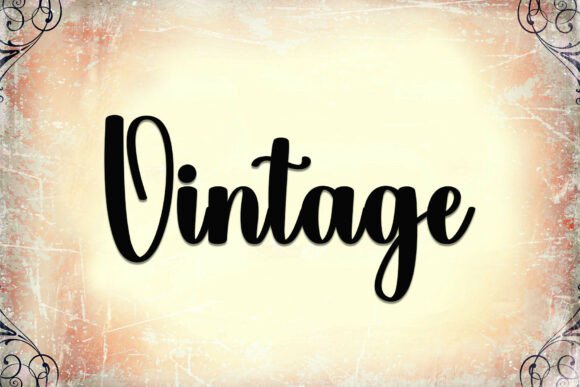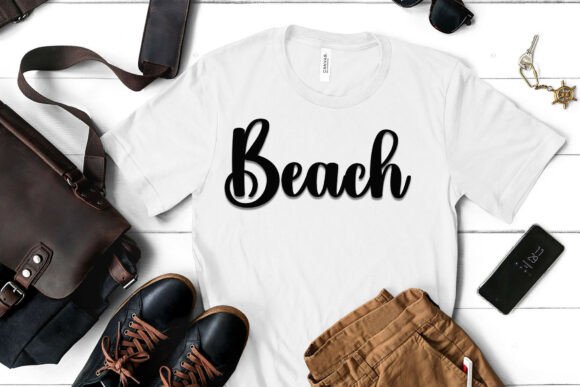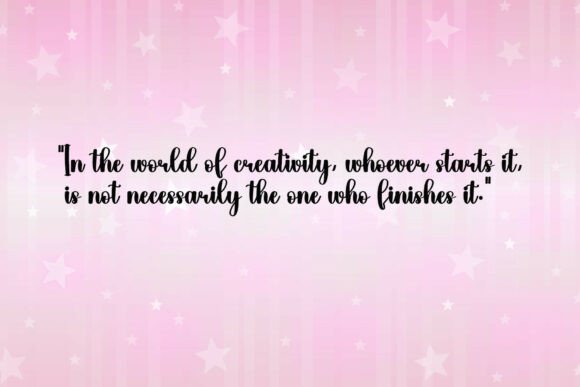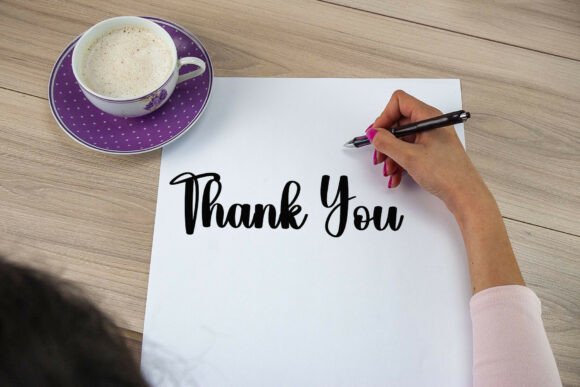
Introducing Bookmark Font: The Sweet and Cursive Handwritten Font for Your Design Needs
Are you looking for a font that can add a touch of elegance and romance to your designs? Look no further than Bookmark Font, a sweet and cursive handwritten font that is perfect for a variety of design projects. With its gentle and flowing curves, Bookmark Font is sure to make your designs stand out and leave a lasting impression.
What Makes Bookmark Font Special?
Bookmark Font is a unique and beautiful font that is designed to add a joyful and romantic touch to your designs. Its cursive and handwritten style gives it a personal and elegant feel that is perfect for a range of design projects, from branding and logos to wedding things and greeting cards. Whether you’re a designer, crafty DIY enthusiast, or simply someone who loves to create, Bookmark Font is a versatile and stylish choice that is sure to meet your needs.
Bookmark Font is a highly versatile font that can be used for a wide range of design projects. Some of the design ideas that Bookmark Font is perfectly suited for include:
- Branding: Use Bookmark Font to create a unique and memorable brand identity that stands out from the crowd.
- Logos: Create a beautiful and elegant logo that showcases your brand’s personality and style.
- Wedding Things: Add a touch of romance and elegance to your wedding designs, including invitations, programs, and decorations.
- Greeting Cards: Create beautiful and heartfelt greeting cards for special occasions, such as birthdays, anniversaries, and holidays.
- Fashion: Use Bookmark Font to create stylish and sophisticated fashion designs, including lookbooks, catalogs, and advertisements.
- Marketing Promotion: Add a touch of elegance and sophistication to your marketing materials, including brochures, flyers, and social media graphics.
Why Choose Bookmark Font?
There are many reasons why Bookmark Font is a great choice for your design needs. Some of the benefits of using Bookmark Font include:
- Elegant and Sophisticated: Bookmark Font has a beautiful and elegant style that is perfect for designs that need to look fancy and refined.
- Cursive and Handwritten: The cursive and handwritten style of Bookmark Font gives it a personal and unique feel that is perfect for designs that need to stand out.
- Versatile: Bookmark Font is highly versatile and can be used for a wide range of design projects, from branding and logos to wedding things and greeting cards.
- Easy to Read: Despite its elegant and cursive style, Bookmark Font is easy to read and understand, making it perfect for designs that need to communicate a message.
How to Use Bookmark Font
Using Bookmark Font is easy and straightforward. Here are a few tips for getting the most out of this beautiful font:
- Pair it with Other Fonts: Bookmark Font looks great when paired with other fonts, including sans-serif fonts and script fonts.
- Use it for Headings: Bookmark Font is perfect for headings and titles, where its elegant and cursive style can really shine.
- Experiment with Colors: Bookmark Font looks great in a range of colors, from bold and bright to soft and pastel.
In conclusion, Bookmark Font is a beautiful and versatile font that is perfect for a wide range of design projects. With its elegant and cursive style, Bookmark Font is sure to add a touch of romance and sophistication to your designs. Whether you’re a designer, crafty DIY enthusiast, or simply someone who loves to create, Bookmark Font is a great choice for anyone looking to create beautiful and stylish designs.